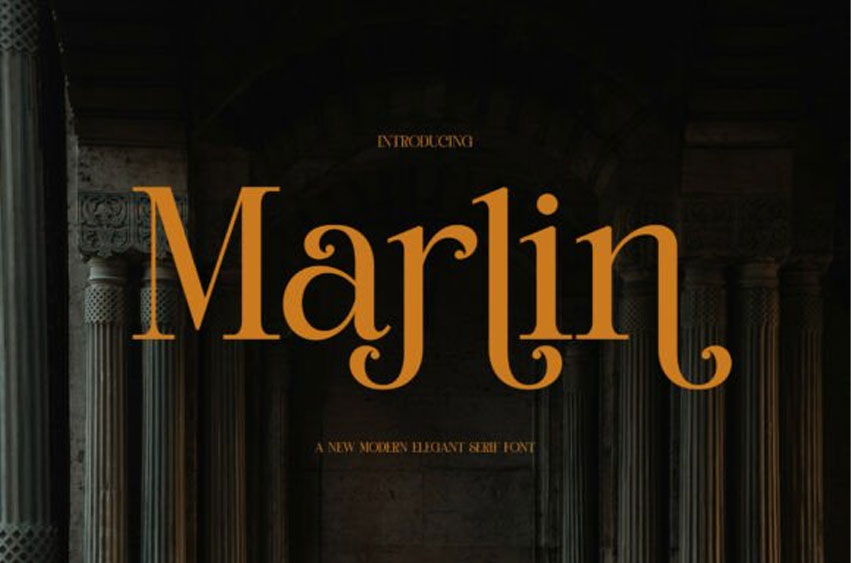
Marlin Font is a captivating, modern, elegant serif font distinguished by its soaring, dramatic ascenders and descenders that infuse classic high-fashion typography with a modern flair.
This stunning display typeface features meticulously crafted, flowing curves on key lowercase glyphs, creating a vertical rhythm and unmistakable sophistication ideal for luxury branding. The high contrast between the thick and thin strokes ensures an authoritative yet graceful presence in editorial design, upscale branding, and high-end advertising.
Marlin is a versatile font that offers both powerful headlines and refined text, making it a perfect typography choice when conveying prestige and timeless style.